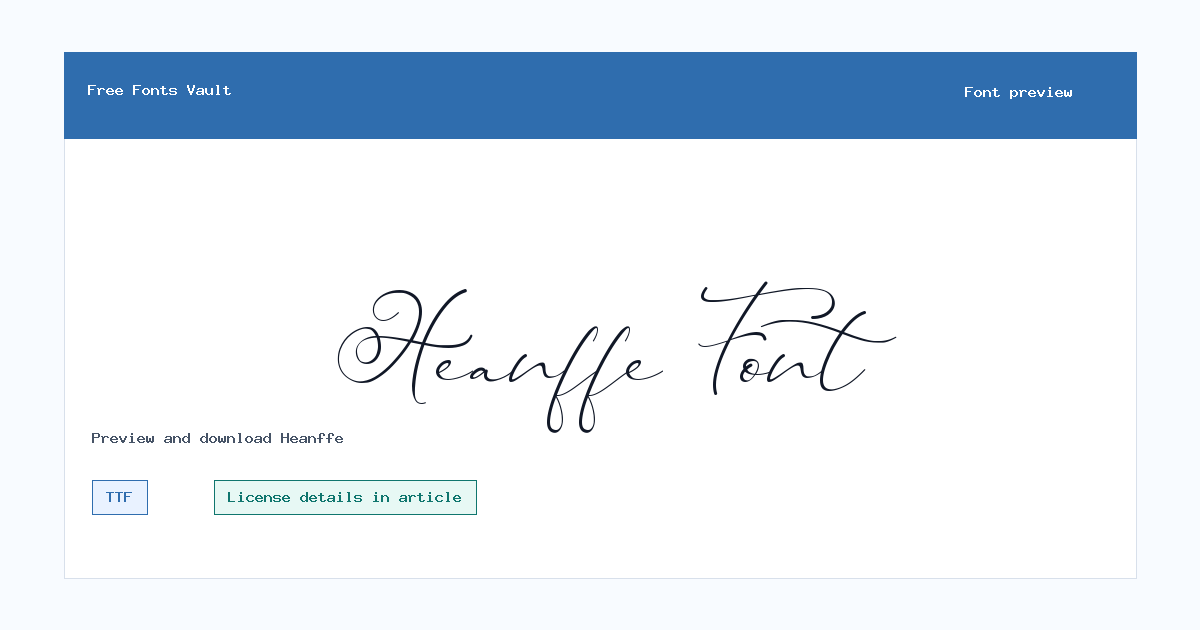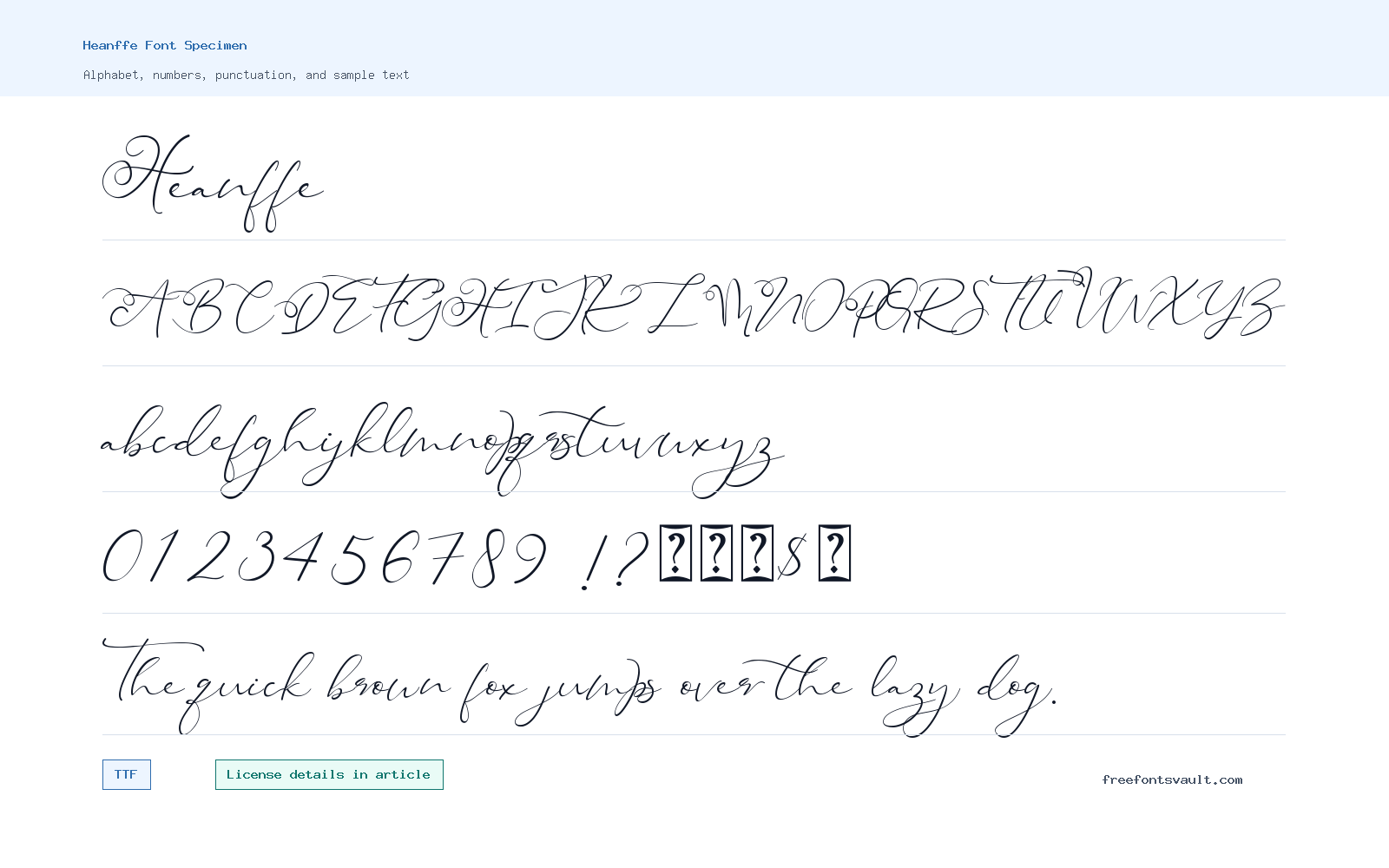
Heanffe
Heanffe font.
Heanffe is a calligraphic script font with a decorative handwritten feel. It works best when you need a stylish wordmark, headline, invitation title, or short phrase rather than long body text.
About Heanffe Font
Heanffe uses flowing script letterforms with a formal, ornamental tone. The font is listed in script and calligraphy categories by font sites, and the available file is a TrueType font named Heanffe.ttf. Because of its shaped strokes and display style, it is most useful for text that should feel personal, elegant, or crafted by hand.
Use the preview box to test the exact words you plan to design with. Script fonts can look very different depending on the letter combination, spacing, and capitalization. Try names, initials, short brand phrases, wedding wording, packaging labels, or social graphics before downloading. For longer text, pair Heanffe with a simple serif or sans serif so the script stays readable and keeps its impact.
The safest way to judge Heanffe is to test the actual word or name you plan to use. Look closely at joins between letters, long ascenders and descenders, and whether punctuation feels balanced. If the script becomes too ornate, use it for the main word only and set dates, addresses, product details, or captions in a quieter companion font.
If you are preparing artwork for print, test Heanffe on the real background color and at the final output size. Thin script details can disappear when reduced, so export a small proof before using it on packaging, cards, or social graphics.
- Calligraphic script style suited to decorative headings and short display text
- Wedding invitations, greeting cards, and event titles
- Logos, name designs, packaging accents, and social media graphics
Use Heanffe for short text where the decorative script can be large enough to read. Check uppercase and lowercase combinations in the preview, adjust spacing if needed, and avoid using it for paragraphs, small captions, or dense interface text.
What kind of font is Heanffe?
Heanffe is a script font with a calligraphic, handwritten display style.
Is Heanffe good for long paragraphs?
No. It is better for names, titles, and short phrases. Use a cleaner text font for paragraphs.